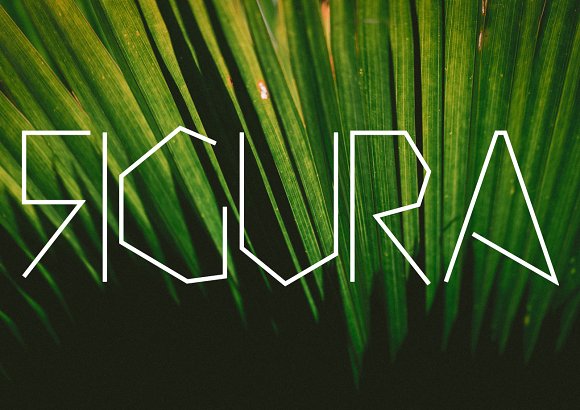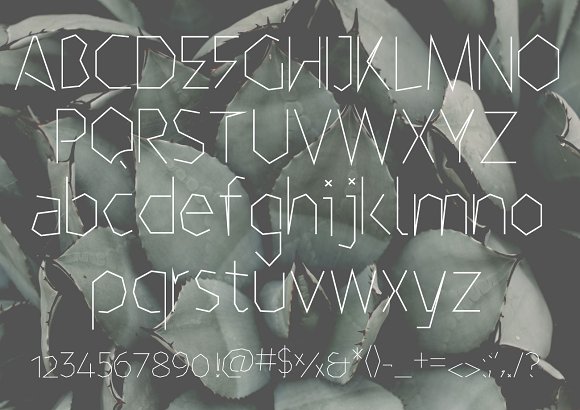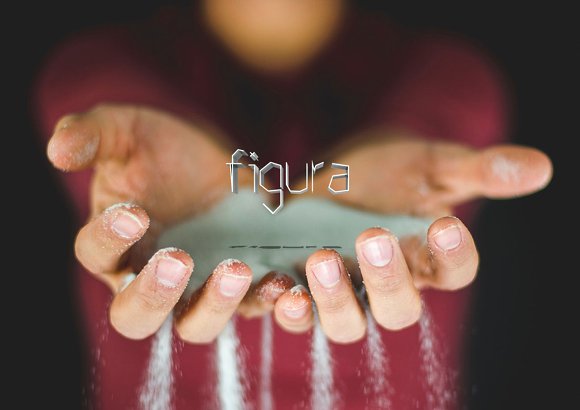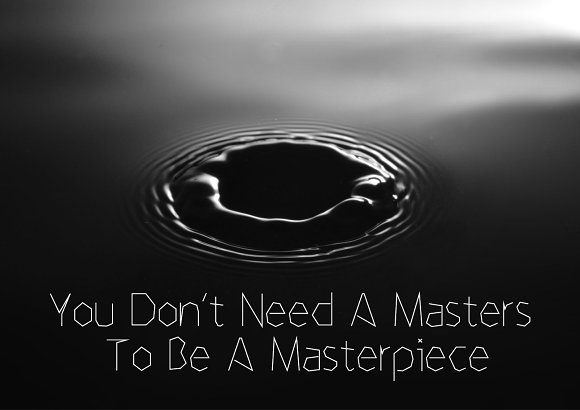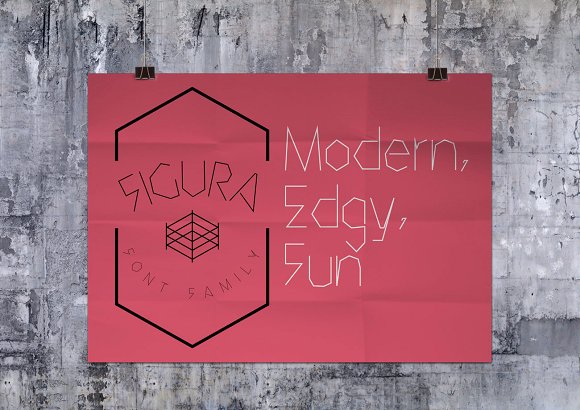
Figura, a modern font
My wife was asking about wanting a more legible, strait forward font, as I was in the process of making the lowercase letters I hated it. After several tweaks and sharp edges and un-connections with letters, I found a look I was going for both my wife and I were happy. Creating a font thats both legible and fun in form was a fun task and i feel pretty strong about this font family.